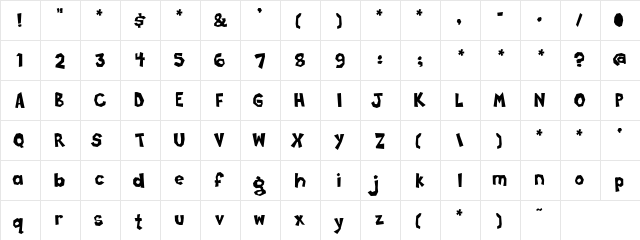
Poppycock Regular
Design Context for Poppycock Typeface
Poppycock is a composed and adaptable typeface that performs quietly and consistently across a wide range of design contexts.